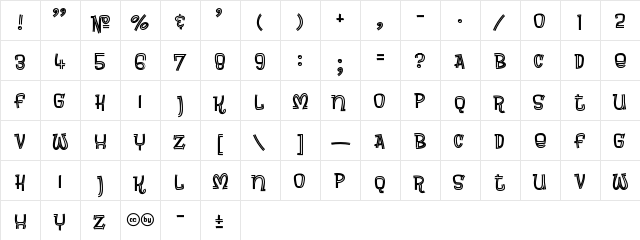
Brewsky Regular
| Designer | Tup Wanders |
Design Context for Brewsky Typeface
Brewsky is a composed and adaptable typeface that performs quietly and consistently across a wide range of design contexts.